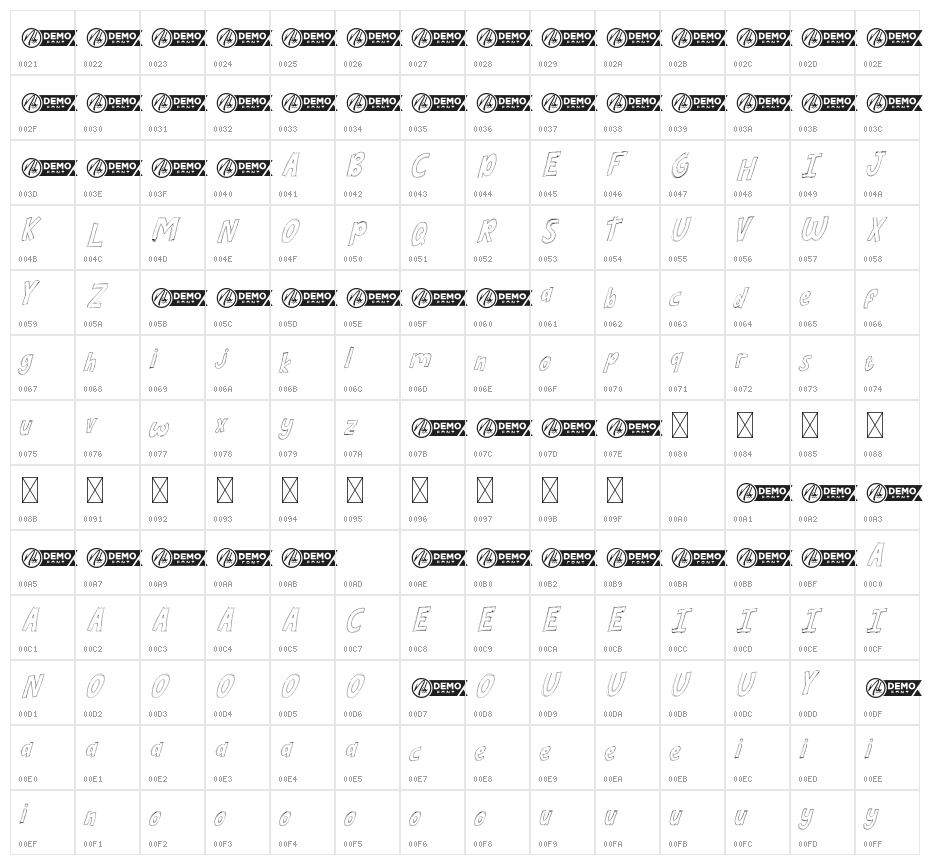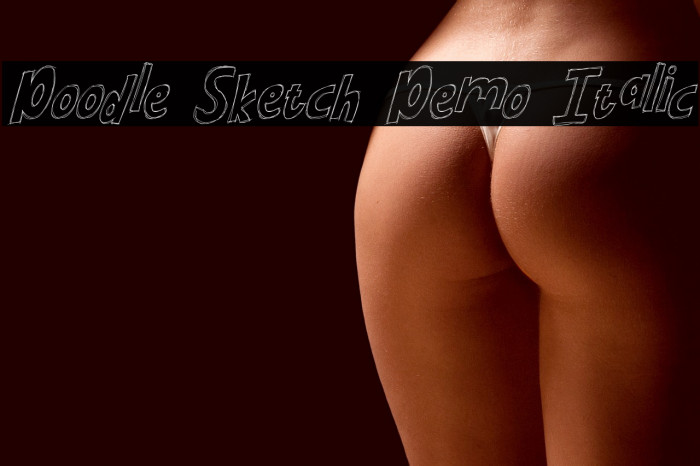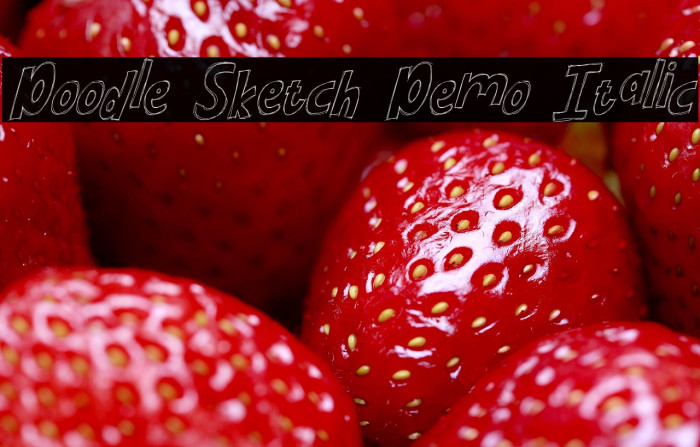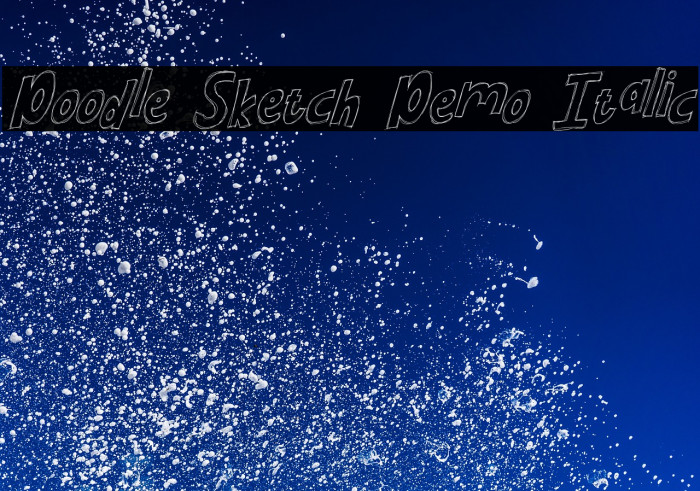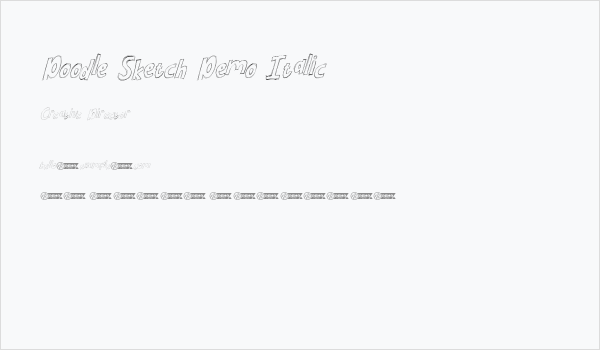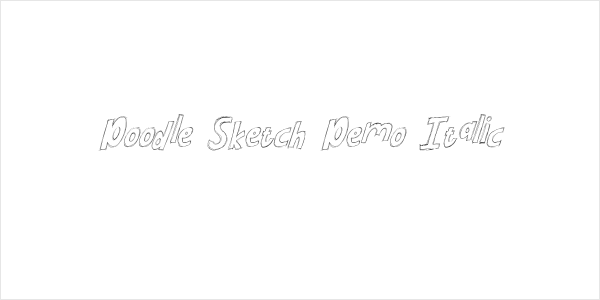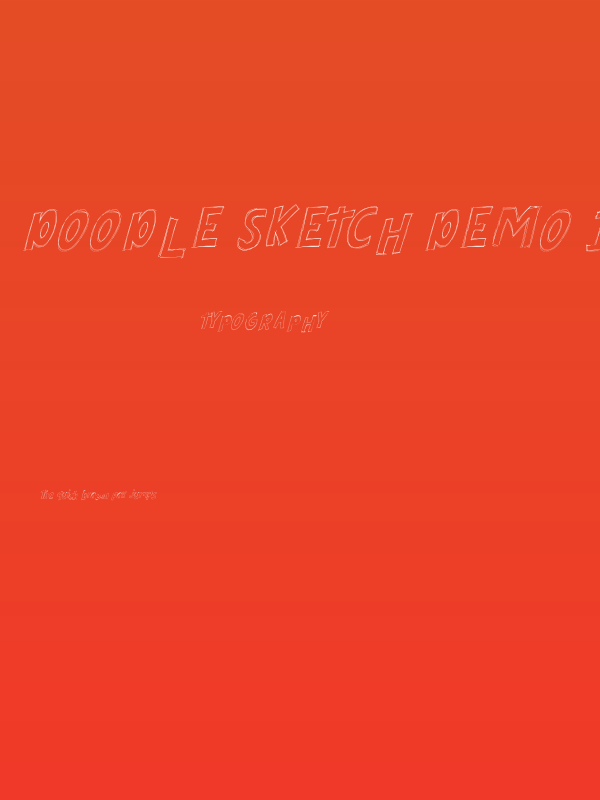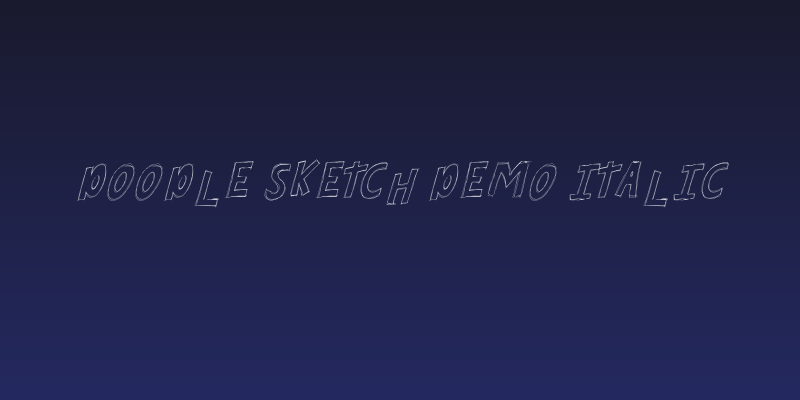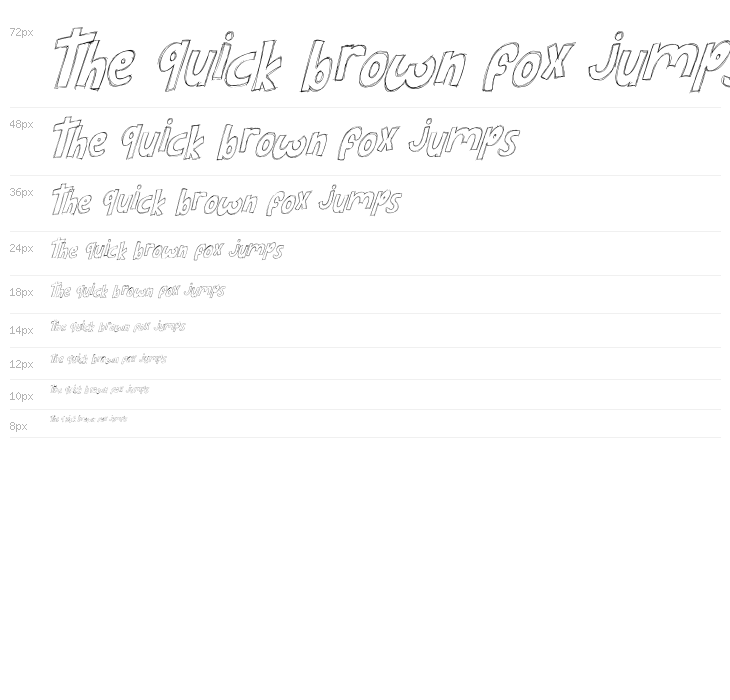
Doodle Sketch Demo Italic Font
Doodle Sketch Demo Italic Description
This font features a playful, hand-drawn style that mimics the look of a doodle or sketch. The characters are slightly italicized, adding a dynamic and casual feel. Each letter has a unique, uneven outline that gives it a whimsical and informal appearance. The font maintains consistent stroke width, providing a uniform look despite its sketchy nature. It is ideal for projects that require a fun and approachable aesthetic, such as children's books, informal invitations, or creative branding. The font's design is both engaging and versatile, making it suitable for a variety of creative applications.
| Use Case | Headlines, Creative projects, Informal text |
| Proposed Projects | Ideal for children's books, creative branding, informal invitations, and playful designs. |